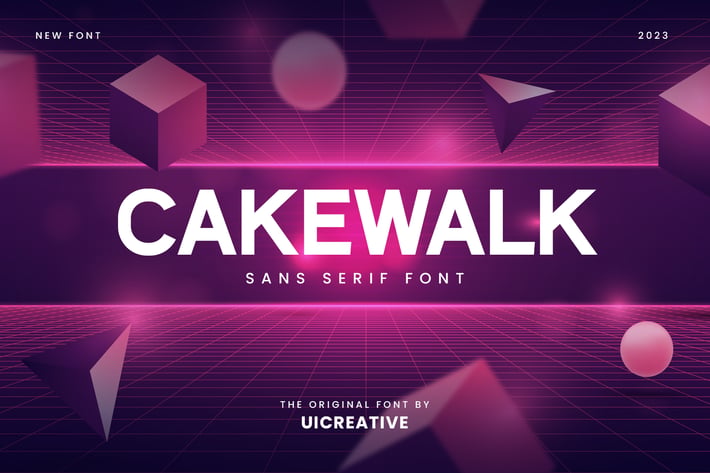
Cakewalk Sans Serif Font
Introducing our new product the name is Cakewalk Sans Serif Font. Modern Sans Serif font that feels beautiful classy, elegant, and modern. This font is perfectly suited for a wide variety of projects, such as signature, stationery, logo, wedding, typography quotes, magazine or book covers, website headers, clothing, branding, packaging design, and more. Also, fashion-related branding or editorial design displays both masculine and feminine qualities.